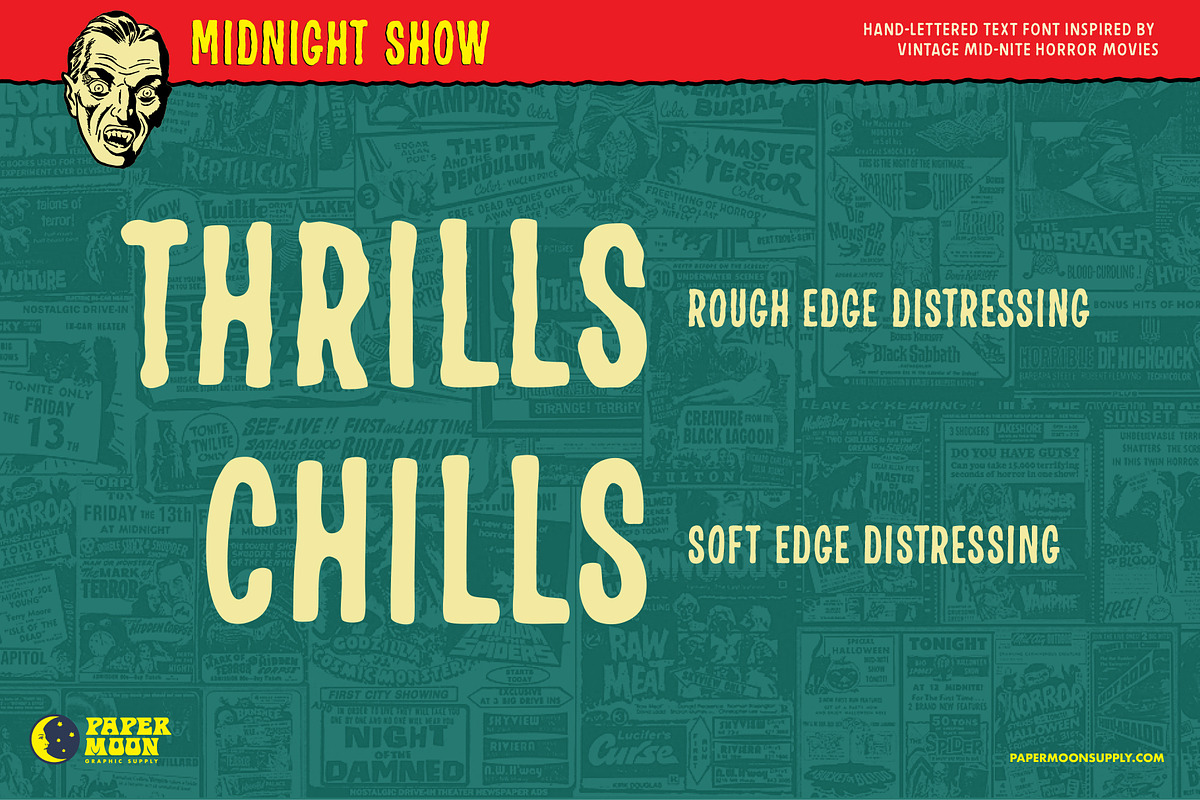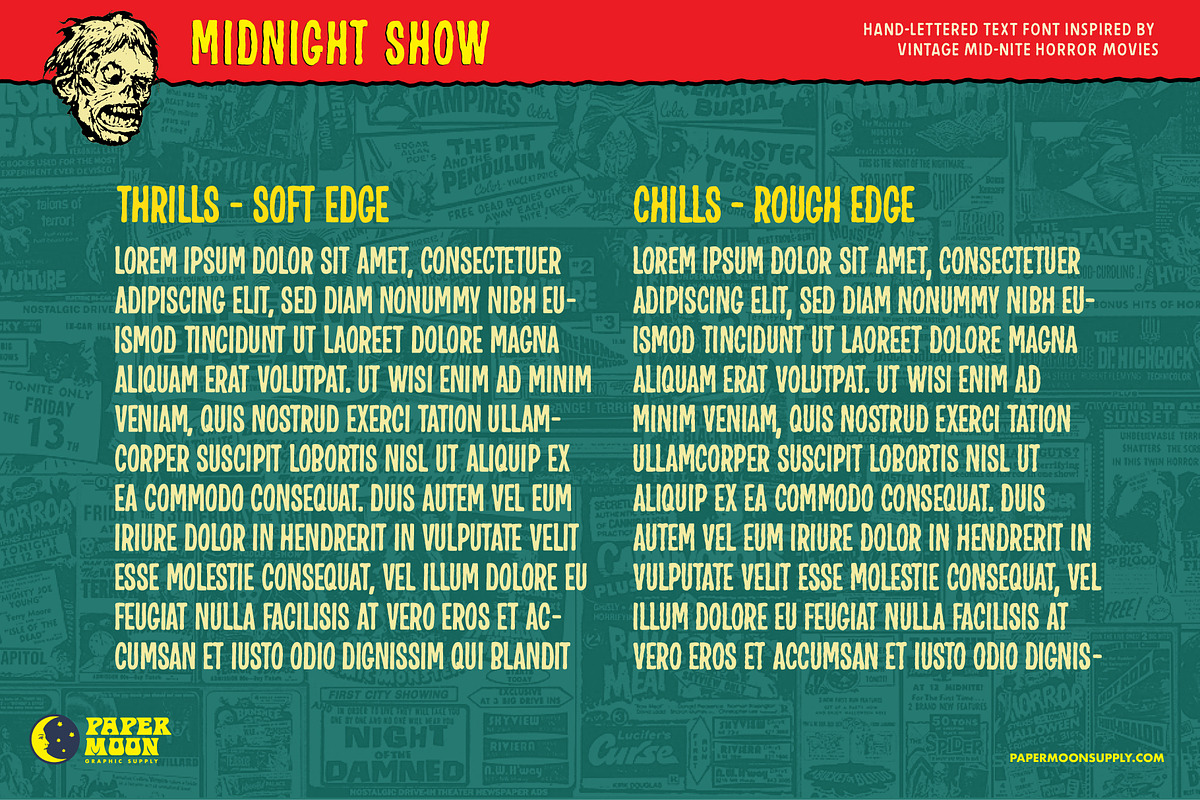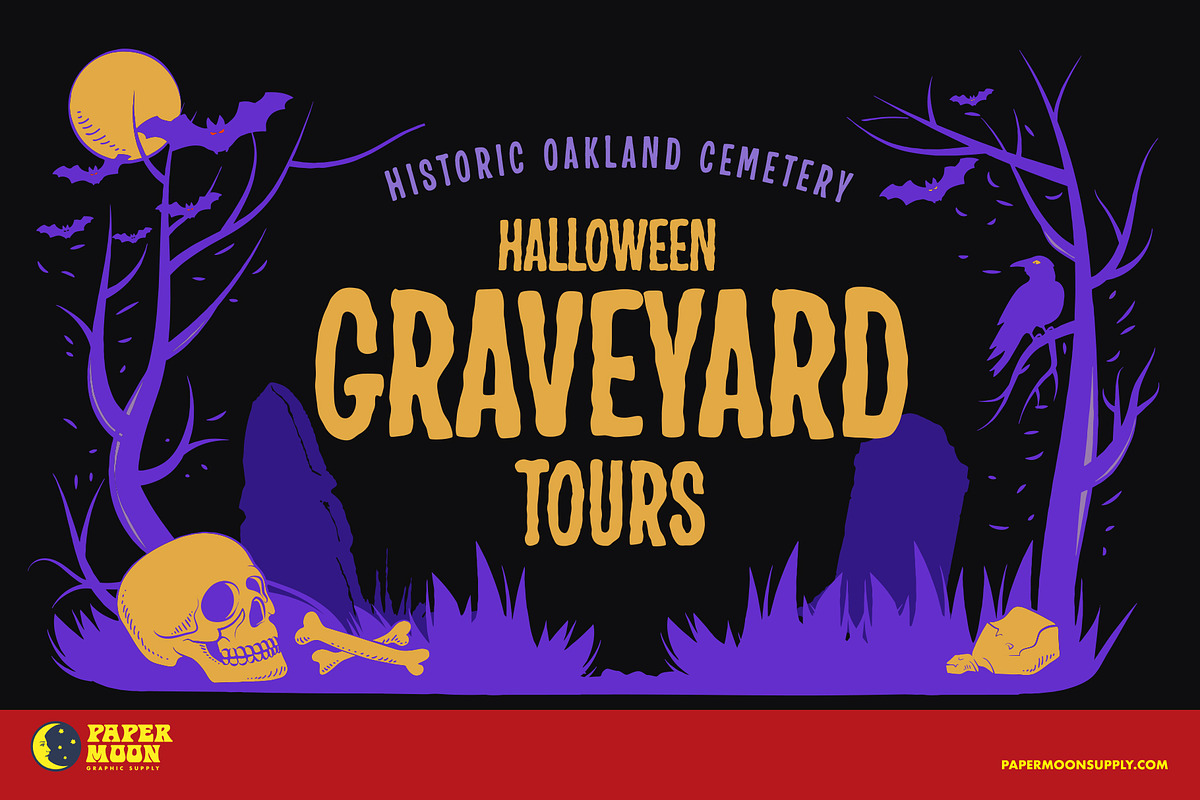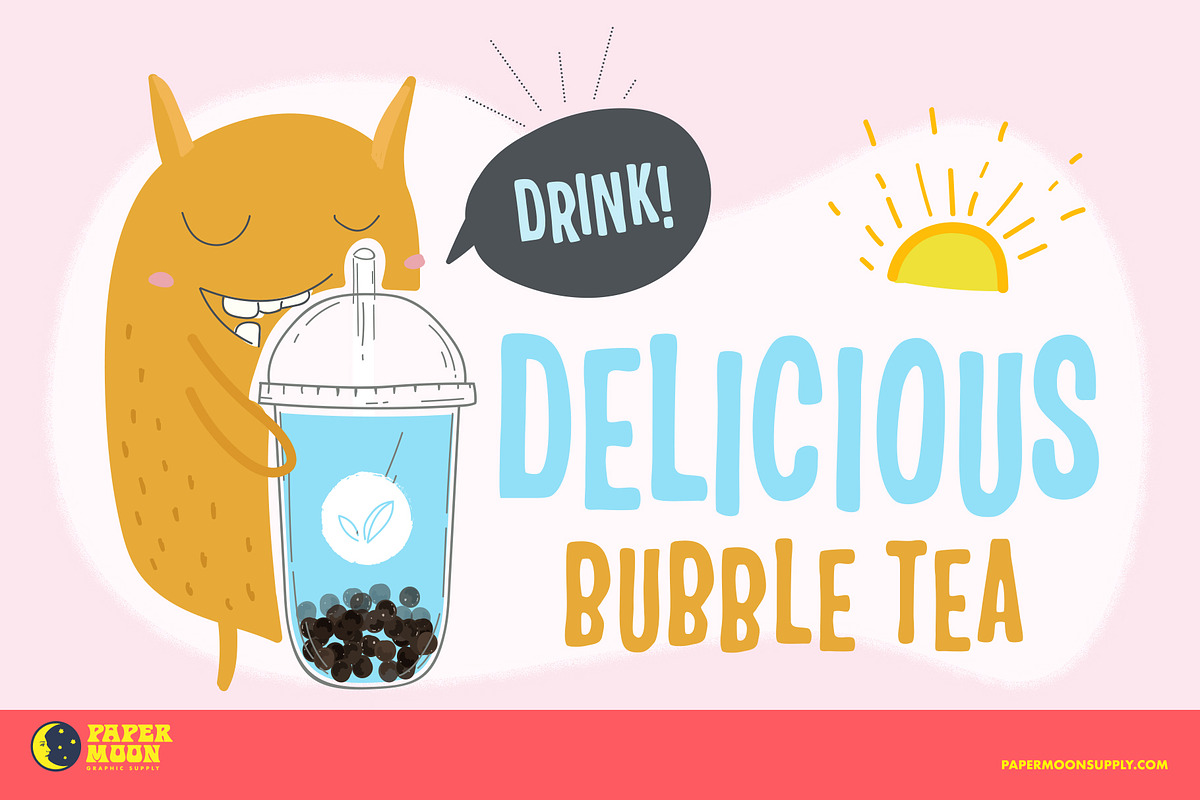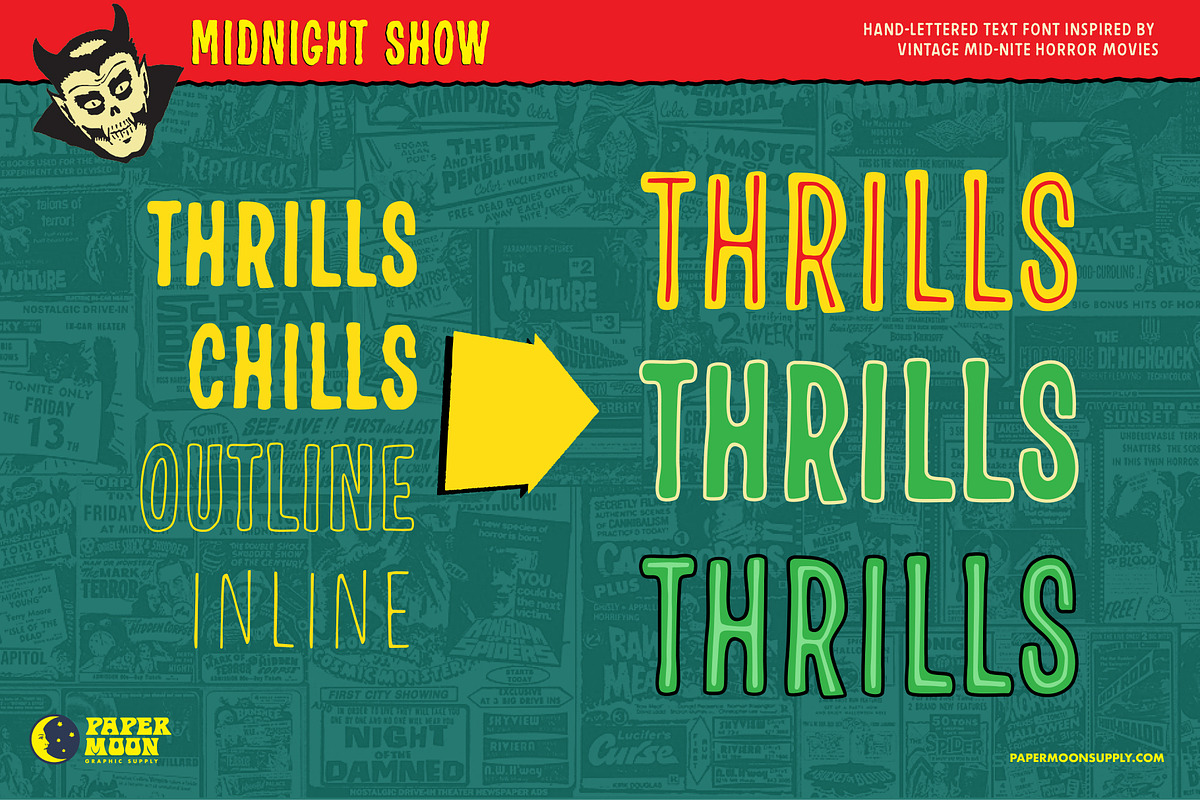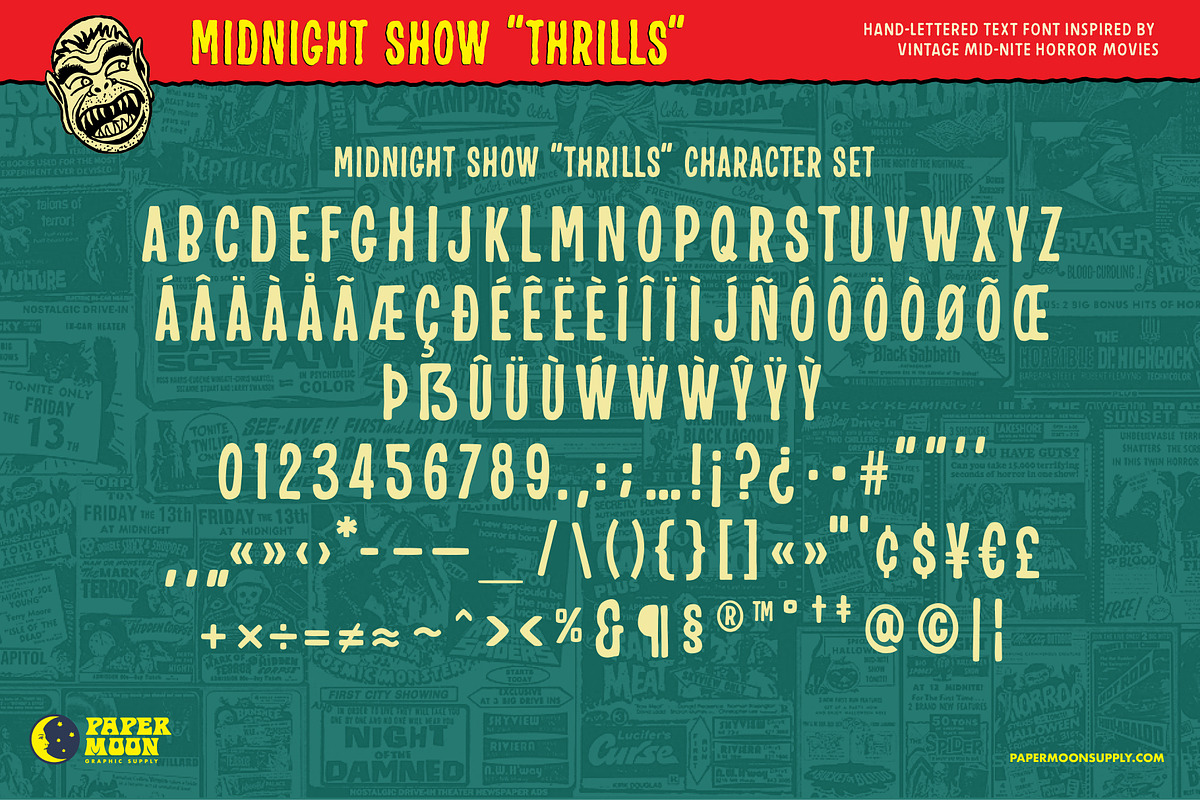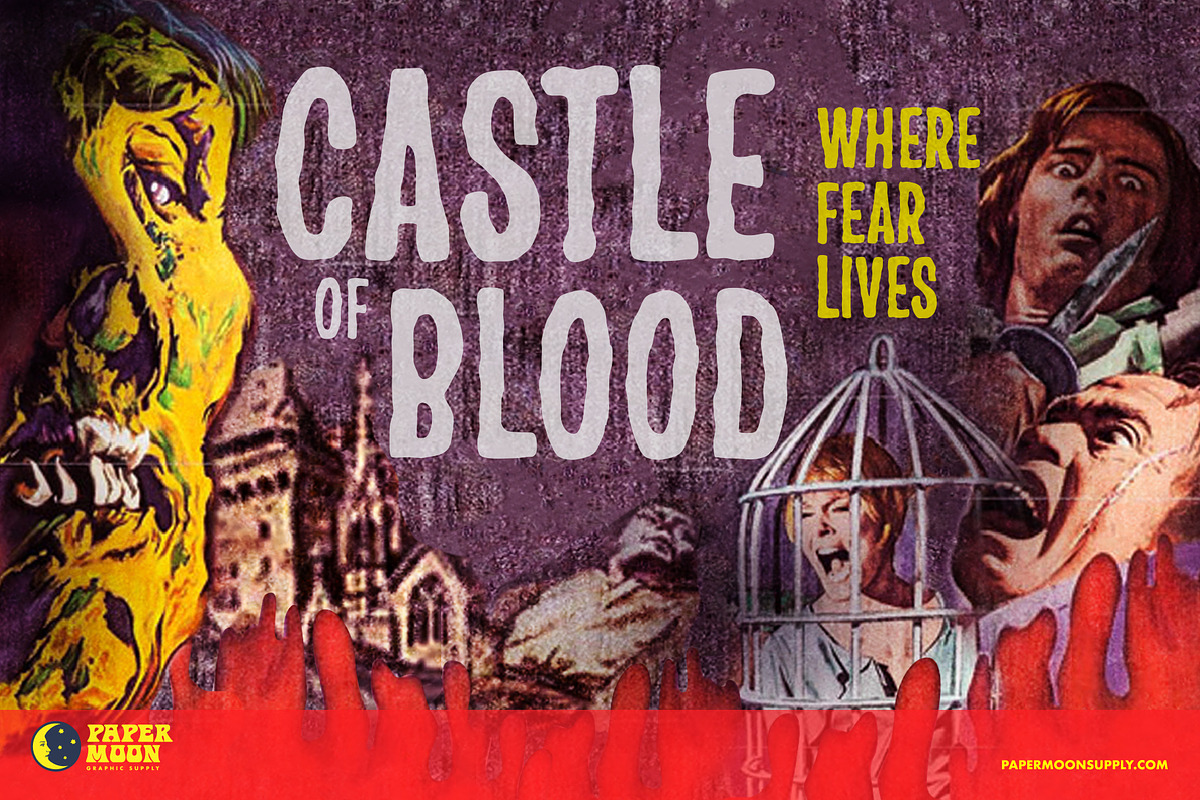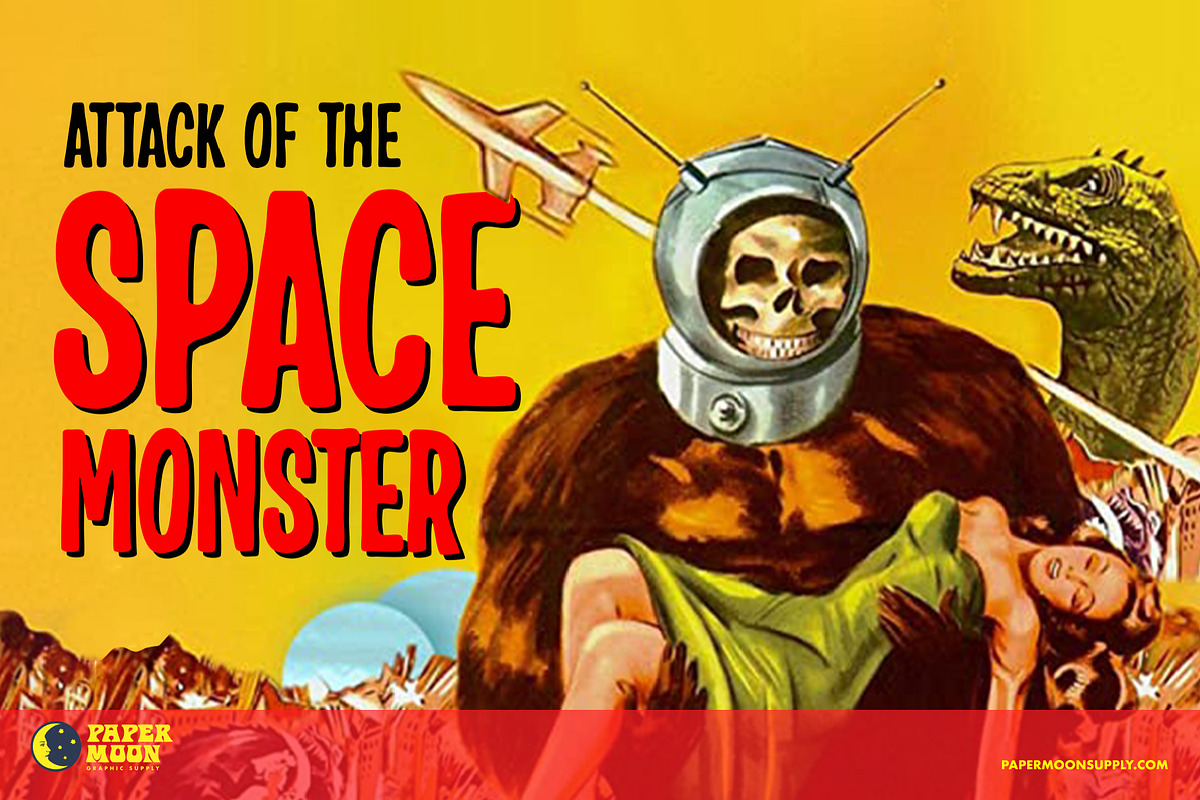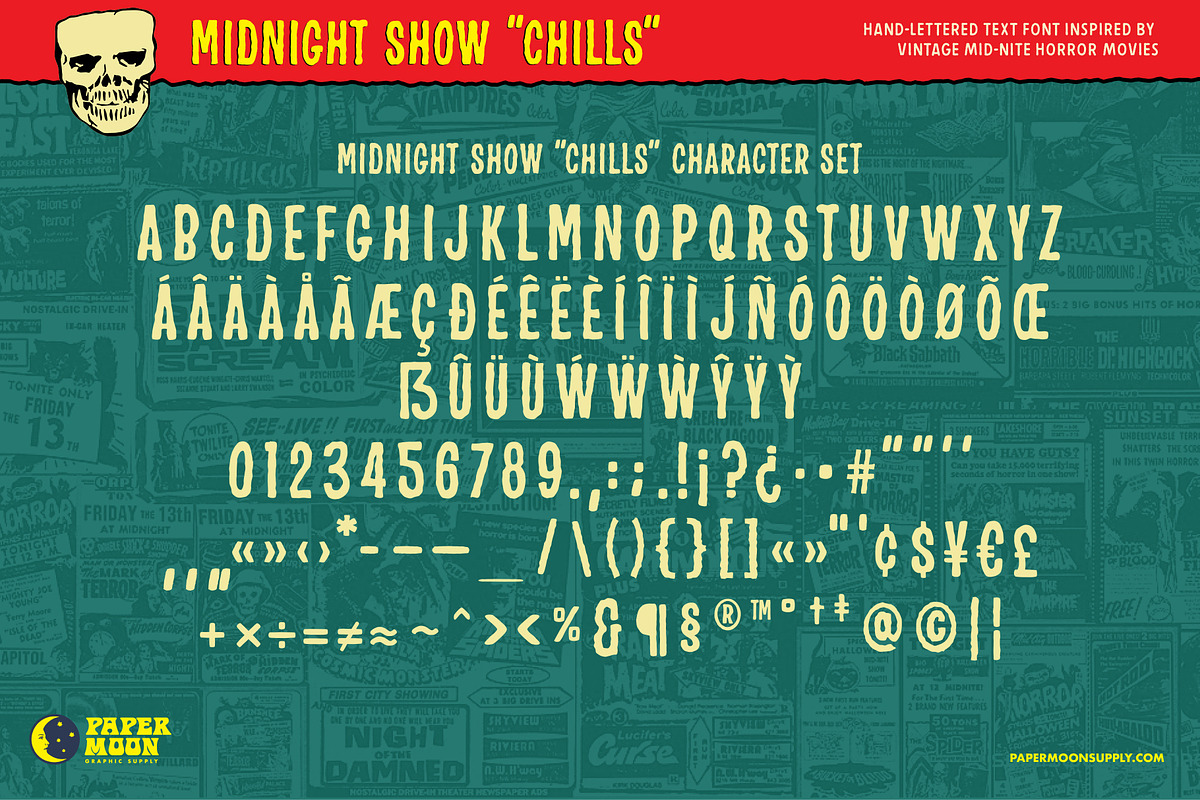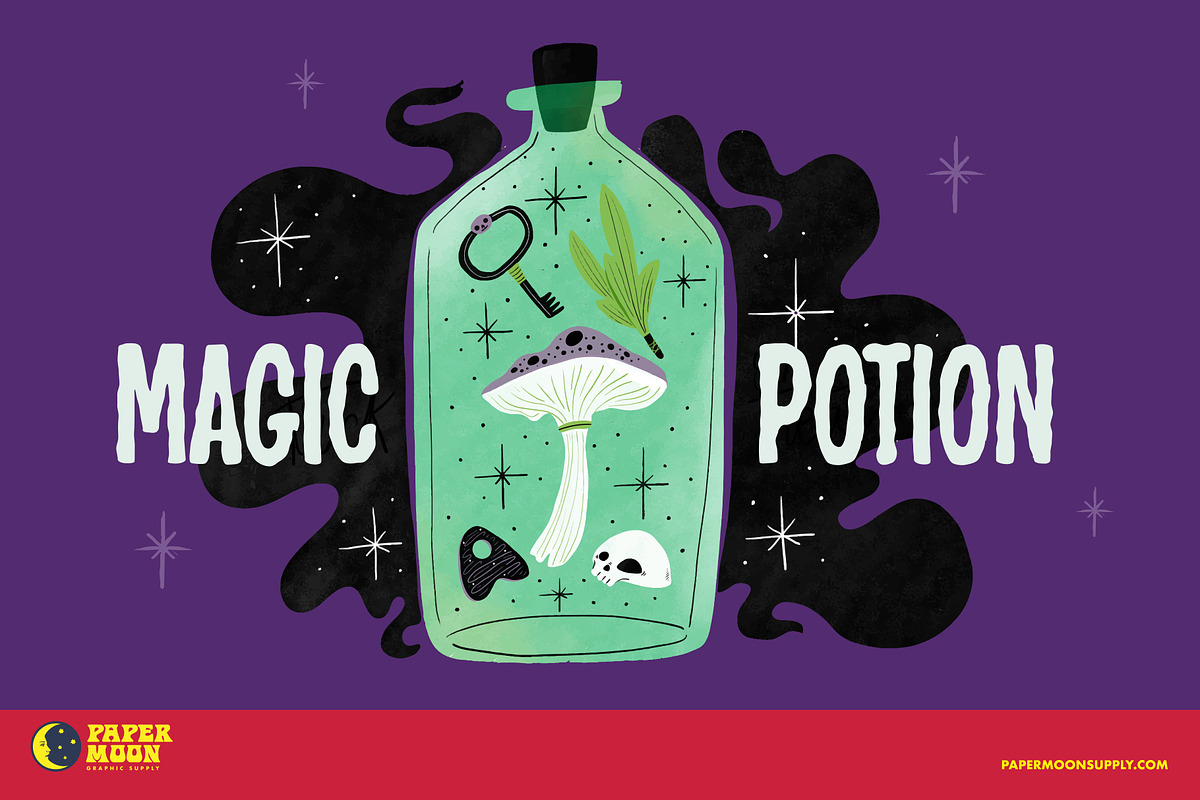
Midnight Show Vintage Font
A new font inspired by vintage late-night horror movie posters.
Designed as a complement to our Spook Show, Renfield, and letterpress fonts. Midnight Show is perfect for text, but even works for headlines.
Includes four styles: Thrills (Smooth), Chills (Rough), Inline and Outline. Truetype & OpenType.
Midnight Show was designed by award-winning illustrator and designer Scott Banks. Until now, this font was part of Scott’s personal collection of design resources. Now you can get this typeface for your personal arsenal.